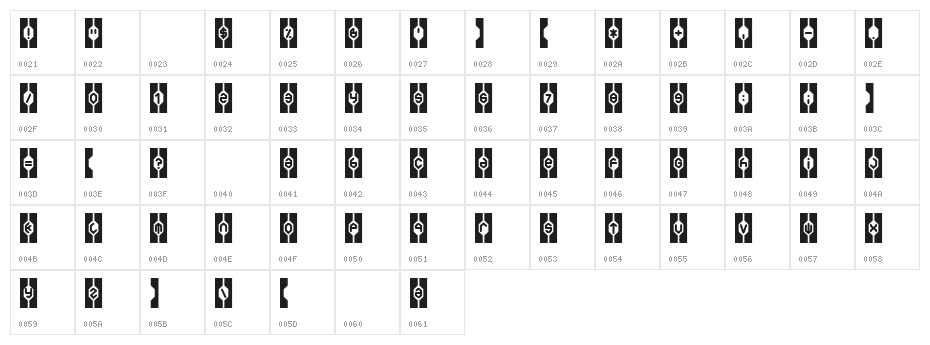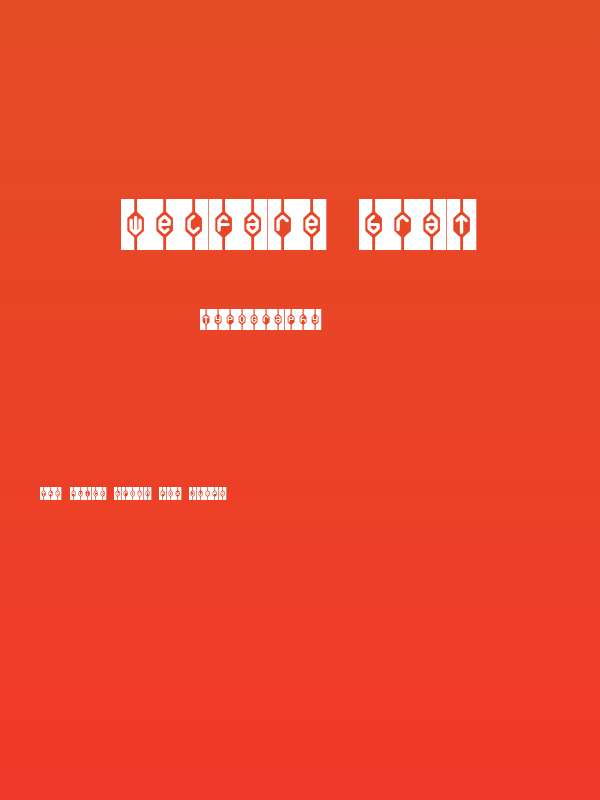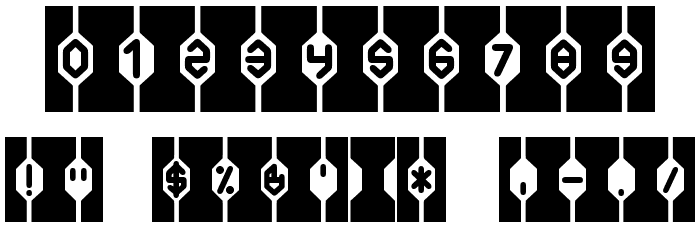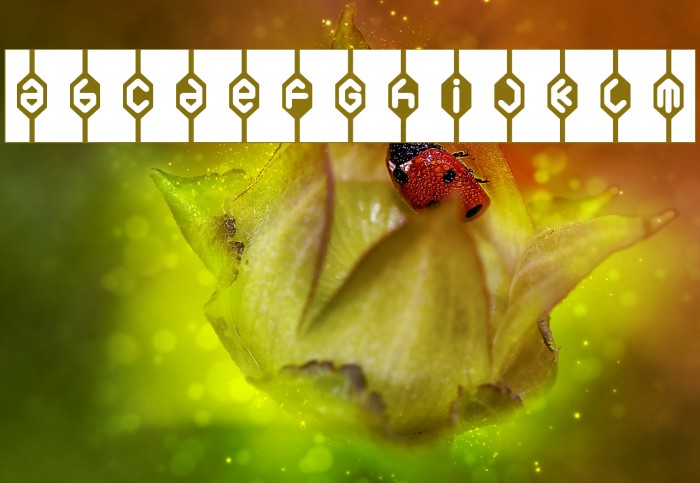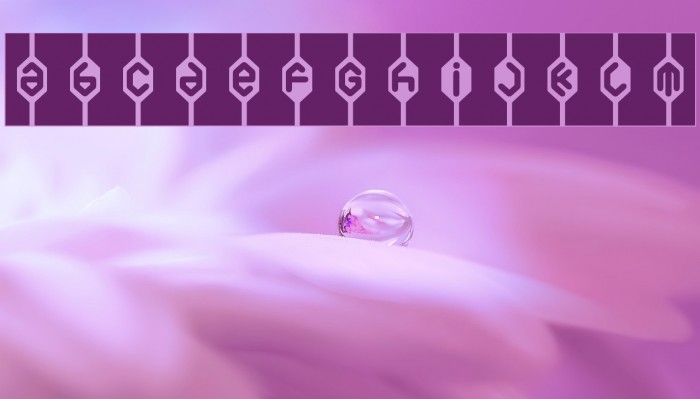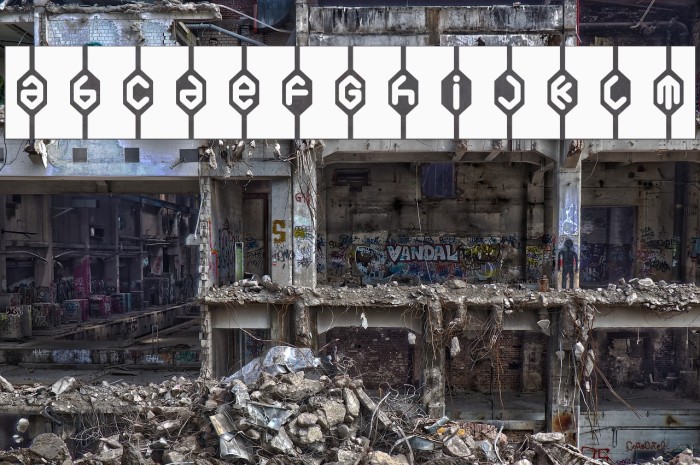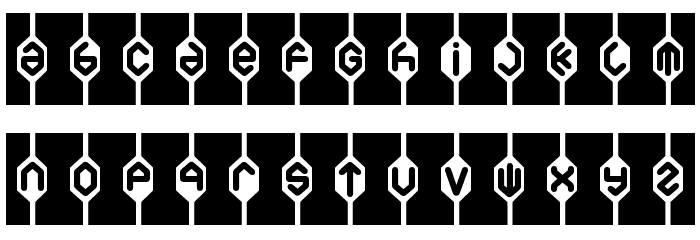
Welfare Brat Font
Welfare Brat Description
This font features a unique, futuristic design with geometric shapes and a bold, angular style. Each character is enclosed within a hexagonal frame, creating a distinct and cohesive look. The letters and numbers are evenly spaced within their frames, providing a uniform appearance across the entire set. The font's design is highly stylized, making it suitable for projects that require a modern and edgy aesthetic. The special characters maintain the same geometric theme, ensuring consistency throughout the typeface. This font is ideal for creative and innovative designs, offering a striking visual impact.
| Overall Style | Futuristic |
| Use Case | Logos, Posters, Headlines |
| Proposed Projects | Ideal for sci-fi themed designs, video game graphics, tech branding, and modern posters. |